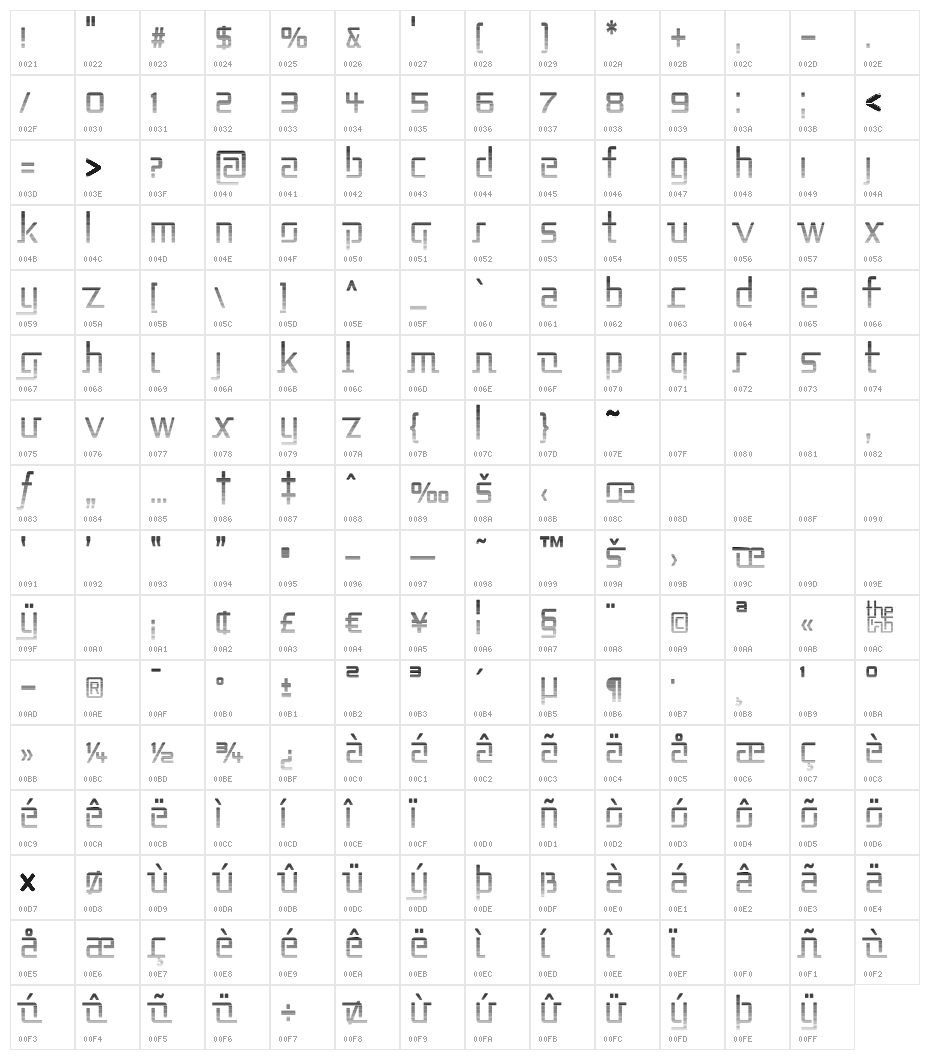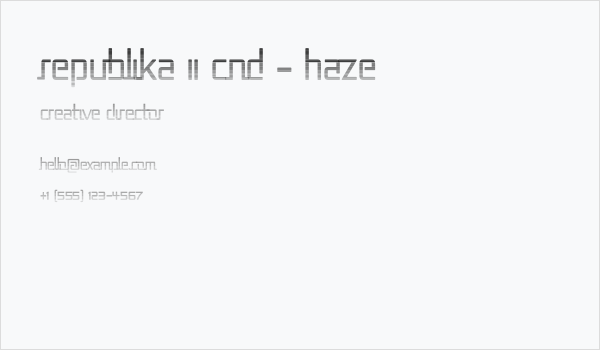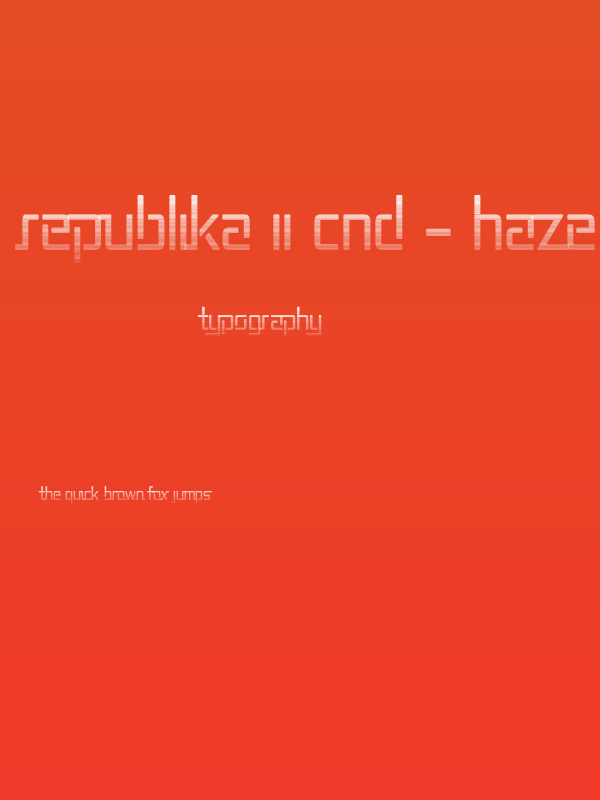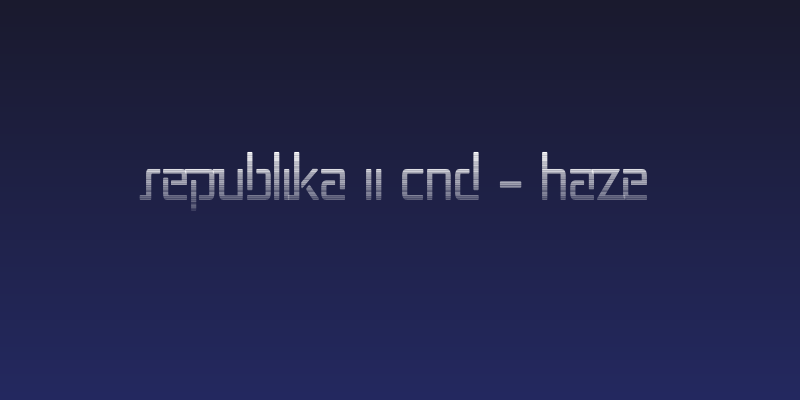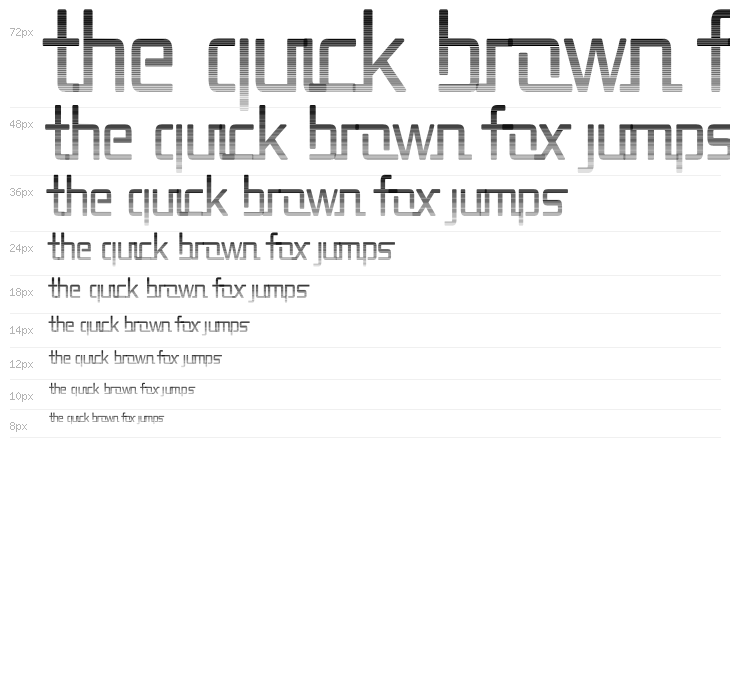
Republika II Cnd - Haze Font
Republika II Cnd - Haze Description
This font features a futuristic and digital aesthetic with a distinct gradient effect applied to each character, creating a sense of depth and movement. The characters are constructed with a geometric precision, emphasizing straight lines and sharp angles. The gradient transitions smoothly from dark to light, enhancing the modern and technological feel. The font maintains a consistent height and width across all characters, ensuring uniformity and balance. The inclusion of both uppercase and lowercase letters, numbers, and a variety of special characters makes it versatile for different design needs.
| Proposed Projects | Ideal for tech-related projects, digital interfaces, video game graphics, and modern branding. |